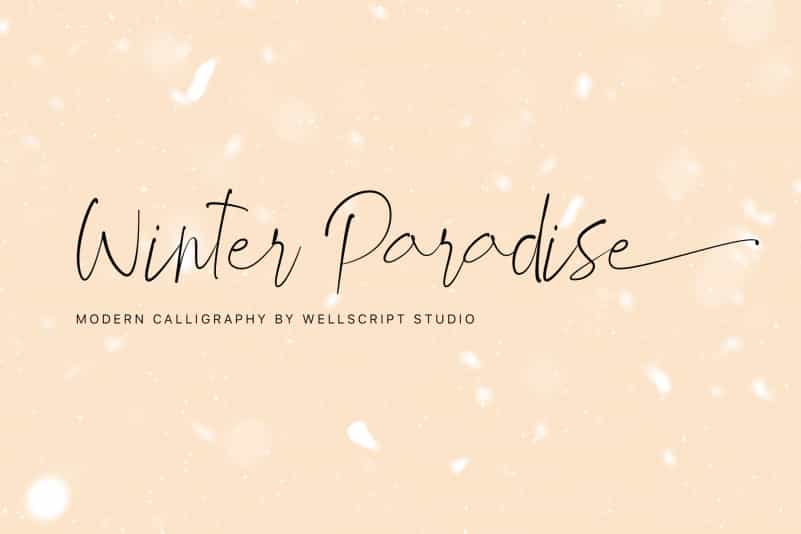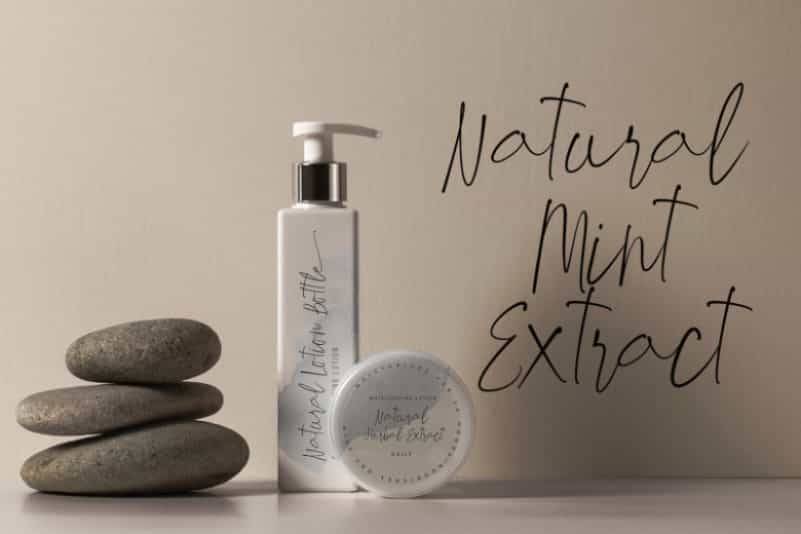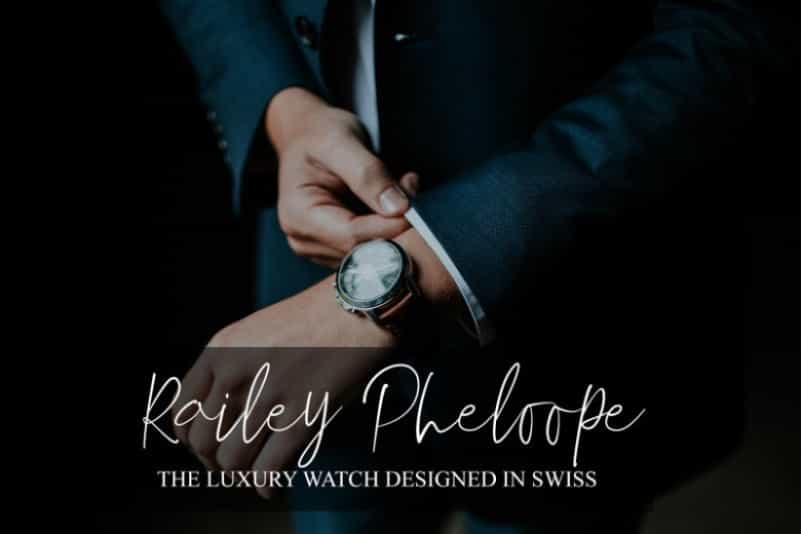
Winter Paradise is a beautiful and elegant font which is based on calligraphy script that is natural and simple in style. These scripts are ideal for branding as they present a unified image of your brand.